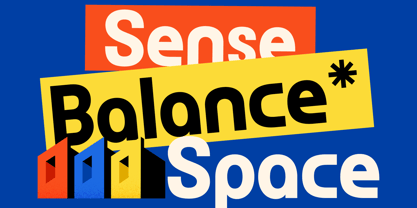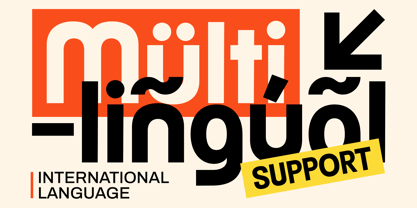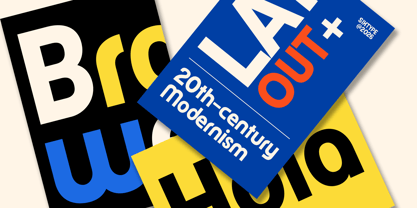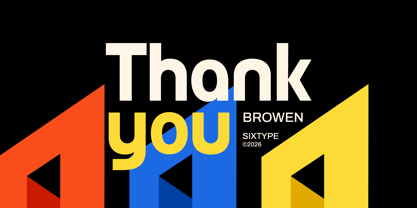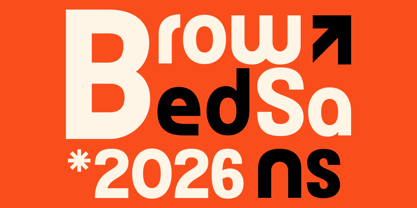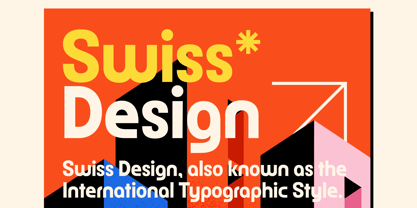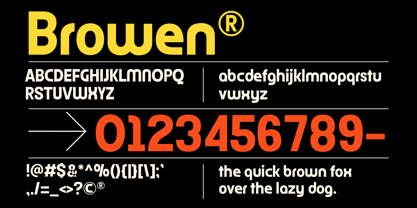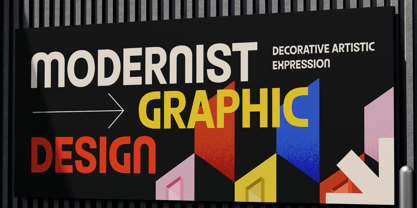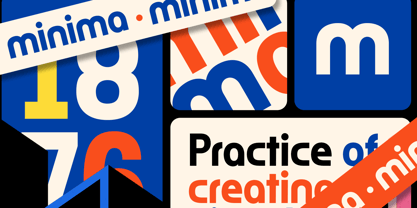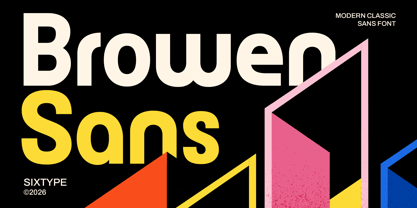
Browen
by Sixtype Foundry
The Browen Font Family and published by Sixtype Foundry. Browen contains 1 styles. More about this family
Browen is a modern serif typeface that combines elegance, clarity, and strong character, making it ideal for contemporary design projects. With its refined letterforms and balanced proportions, this typeface provides a sophisticated aesthetic that excels in both digital and print media. Designed for professionals seeking a modern serif font for branding, logo design, editorial layouts, fashion graphics, packaging, and luxury visual identities, Browen offers a timeless appearance infused with a modern personality. Its elegant strokes and distinctive serif details create a harmonious typography style that resonates with both classic and contemporary sensibilities, ensuring versatility and appeal in various applications.